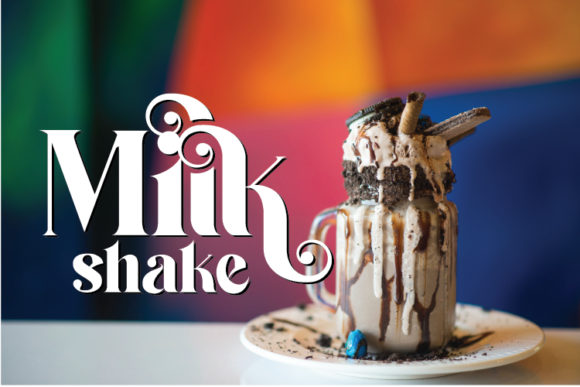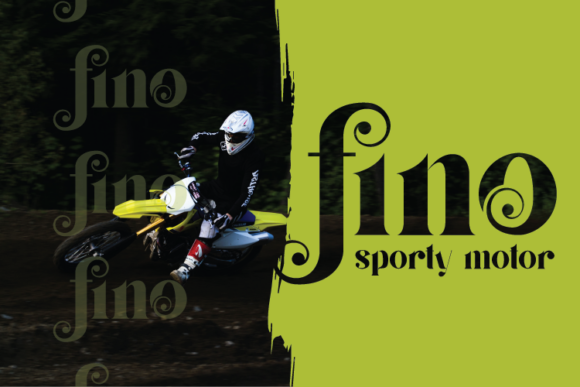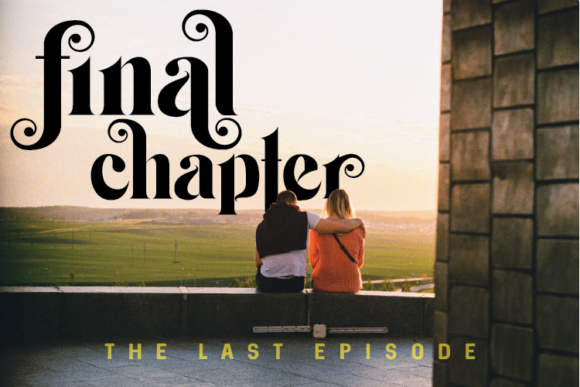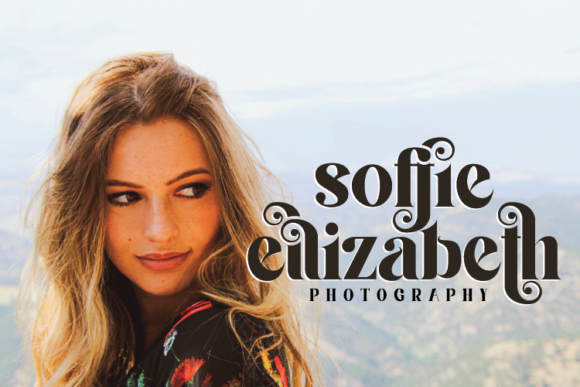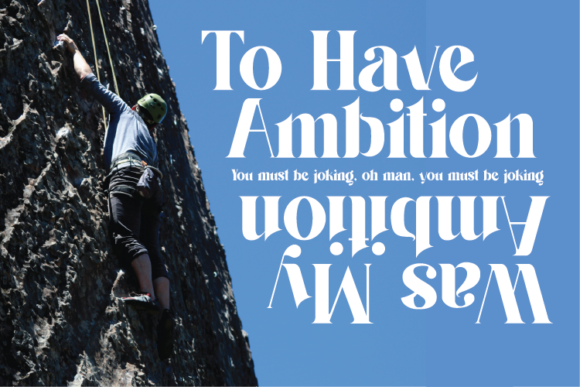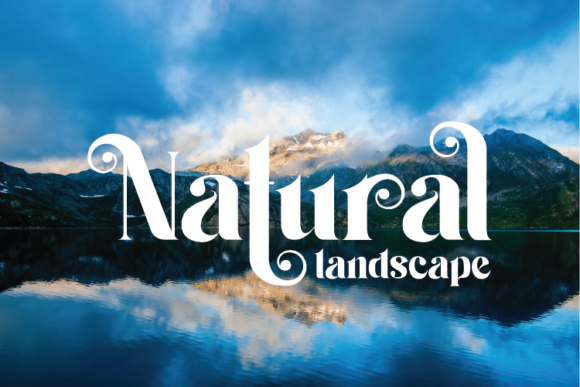
Introduction to Lutfino Font
Lutfino is a quirky serif font.
It features amazing swashes and a classic style It will elevate a wide range of design projects to the highest level, be it branding, headings, wedding designs, invitations, signatures, logos, labels, and much more.
Key Features of Lutfino Font